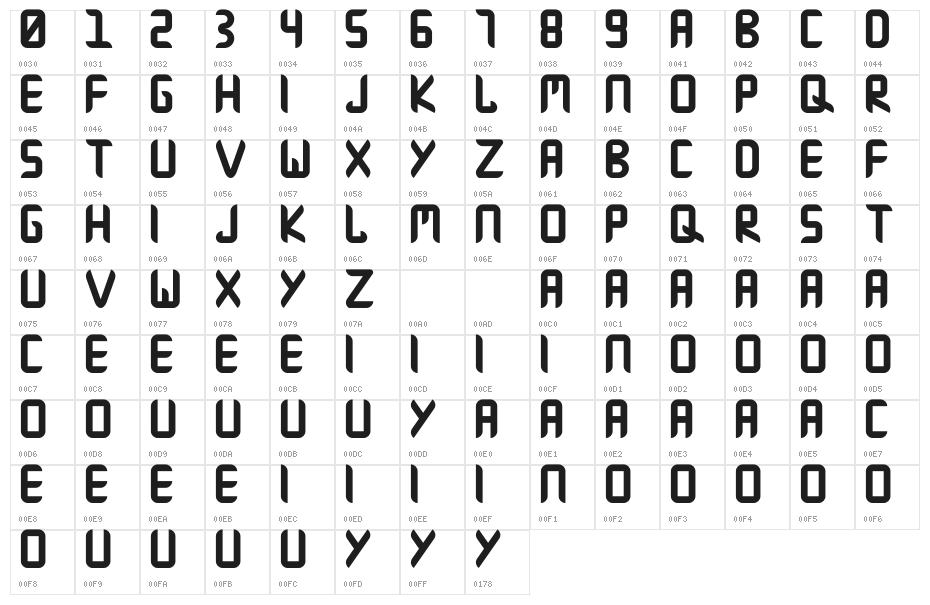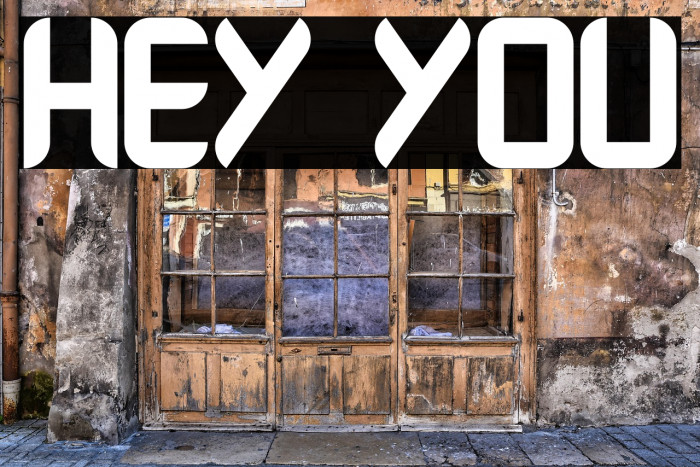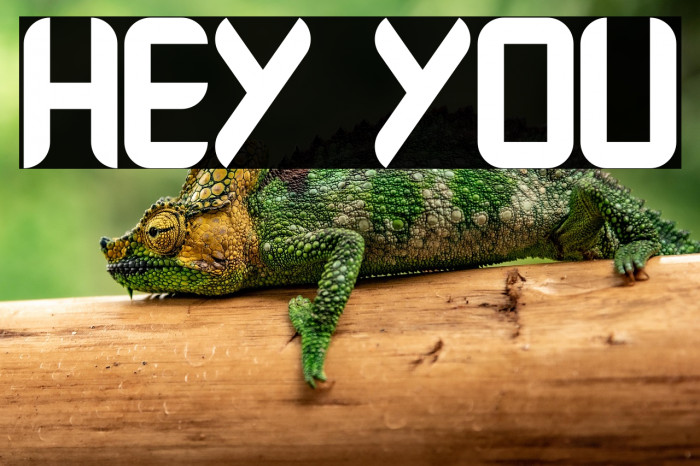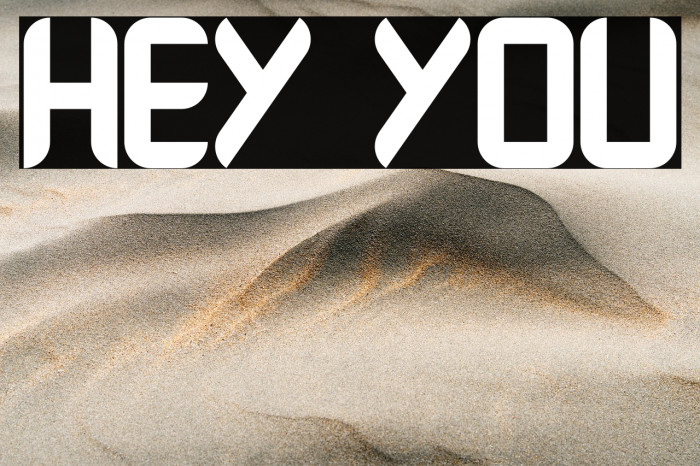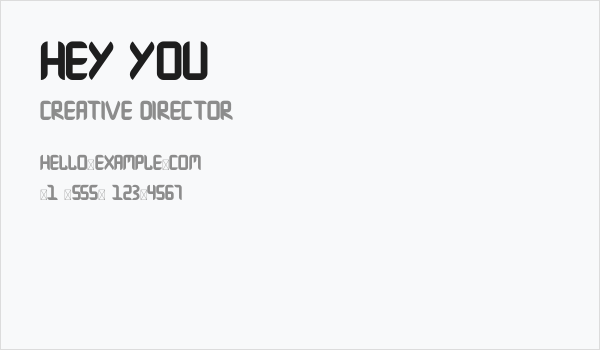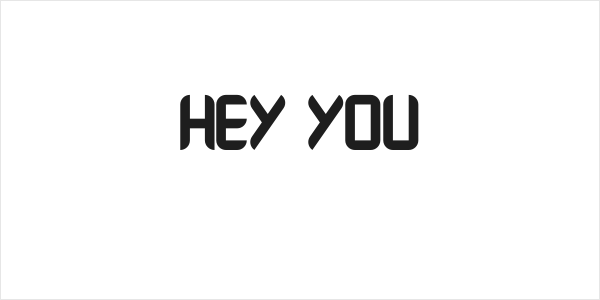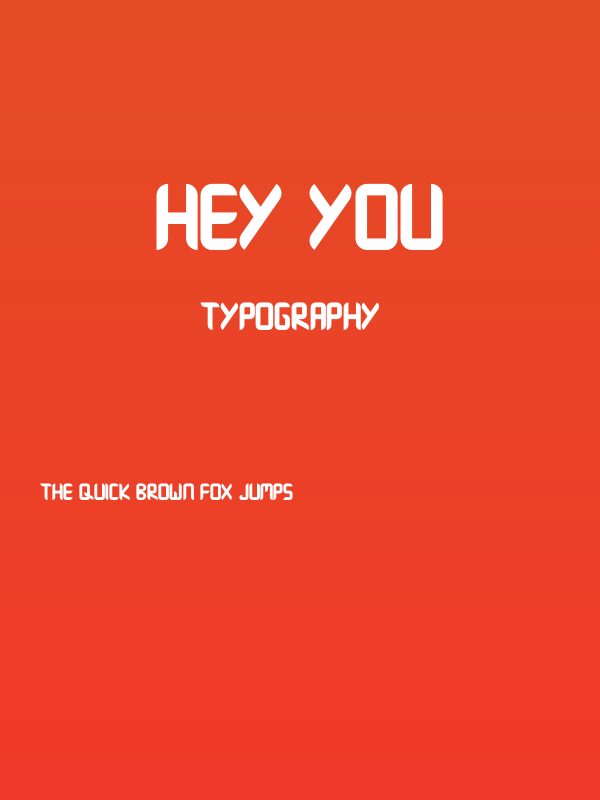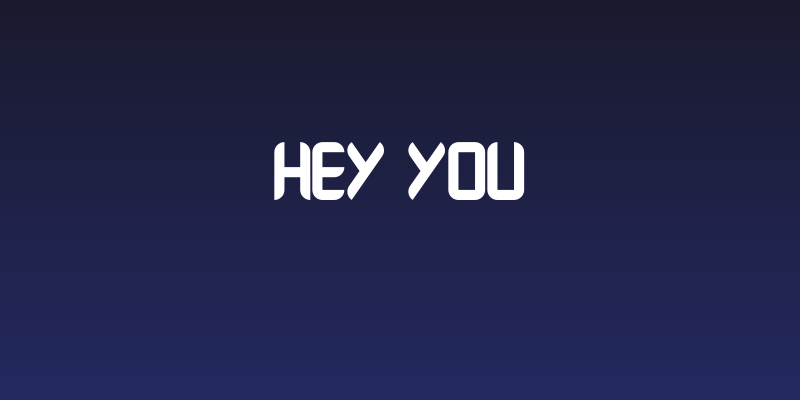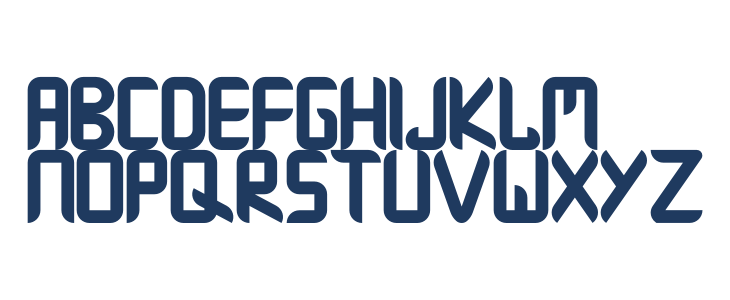
Hey You Font
This font features a bold and modern design with a geometric and futuristic aesthetic. The characters are constructed with clean, straight lines and sharp angles, giving them a distinct and edgy appearance. The uppercase and lowercase letters maintain a consistent style, with a uniform height and width that creates a cohesive look. The numbers are equally bold, with a strong presence that matches the letters. The absence of traditional serifs and the emphasis on angular forms make this font stand out as a contemporary choice. Its unique style is ideal for projects that require a modern and innovative touch.
| Use Case | Logos, Headlines, Posters |
| Proposed Projects | Ideal for technology branding, modern posters, futuristic designs, and digital media. |